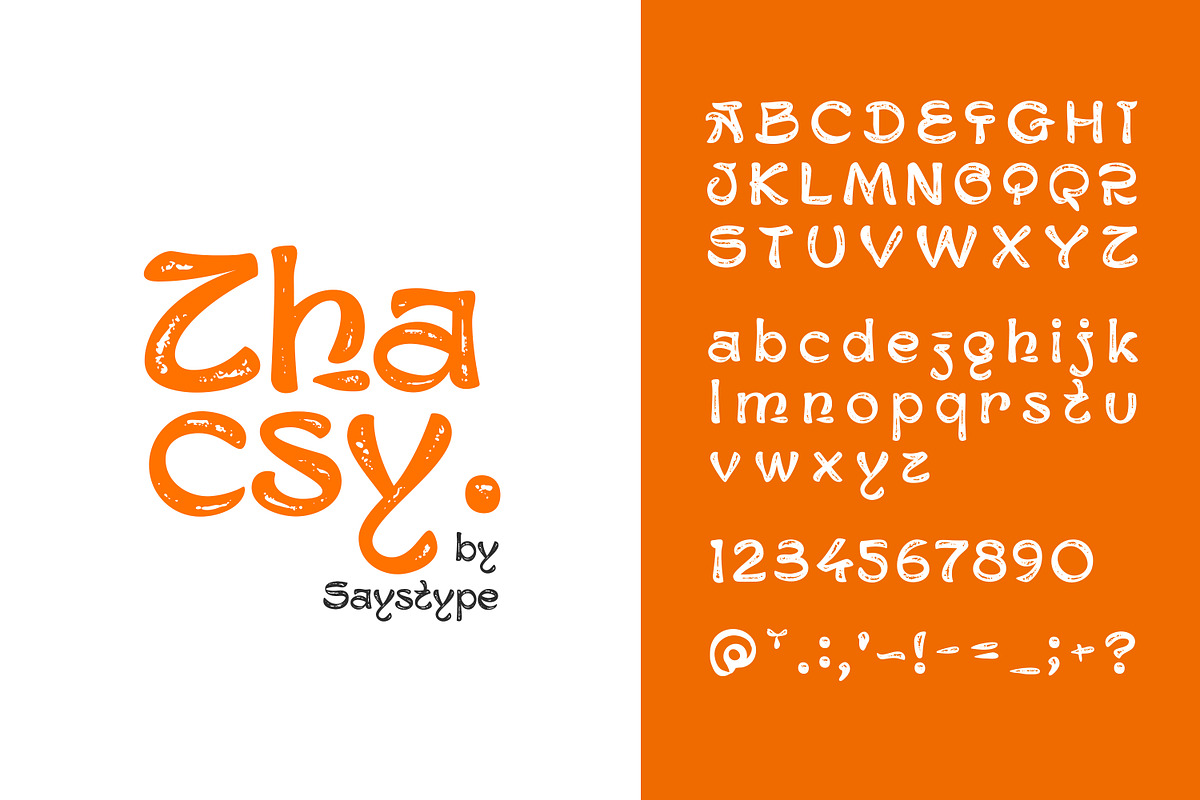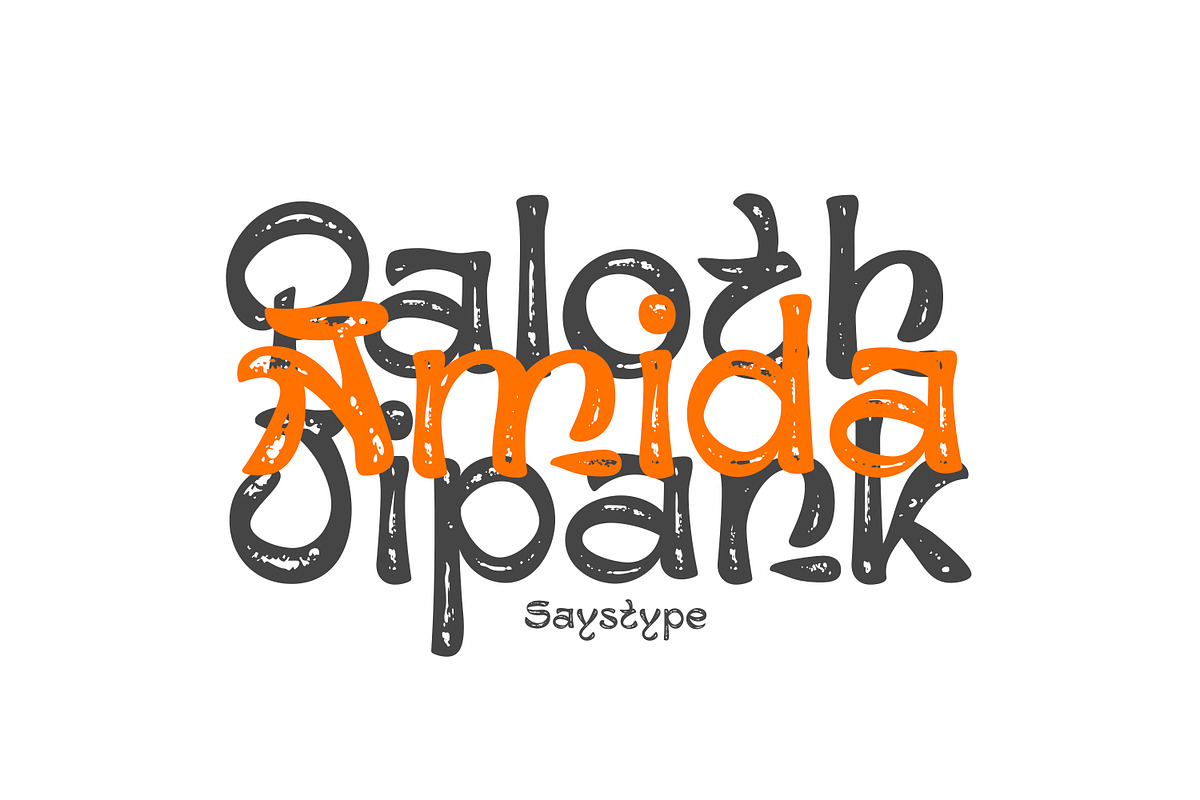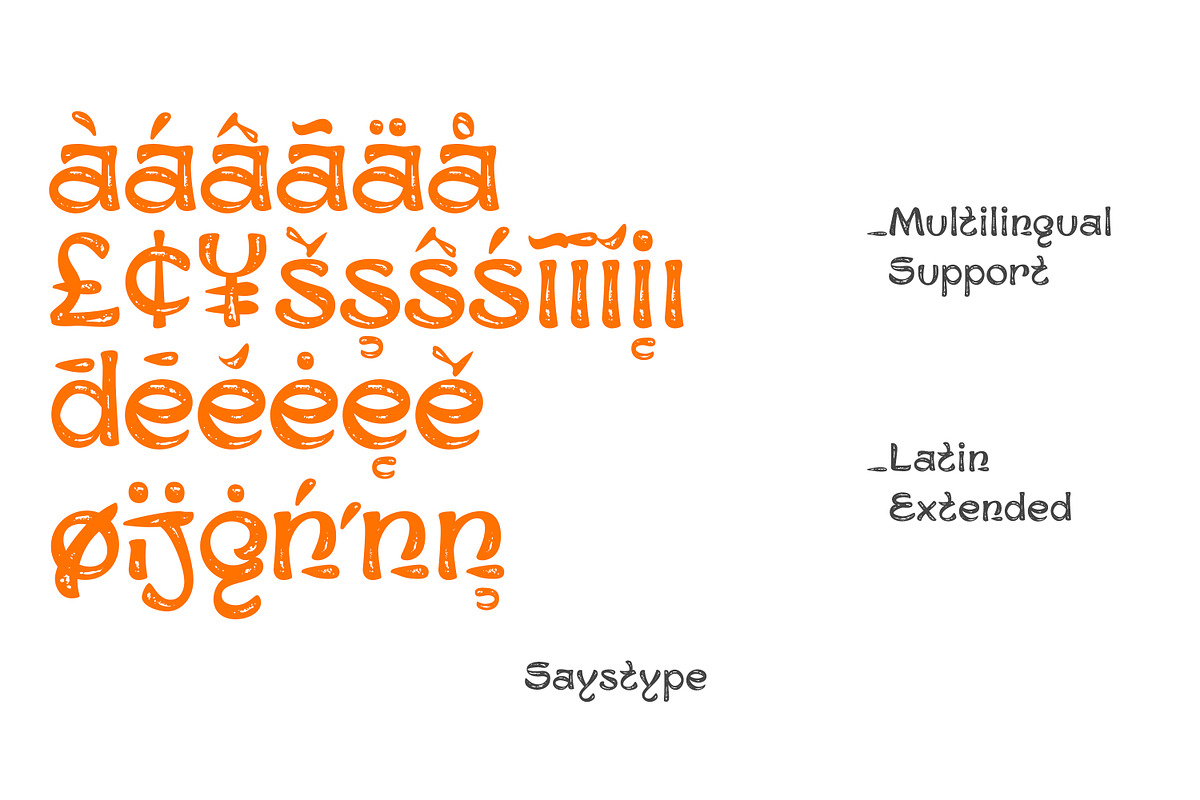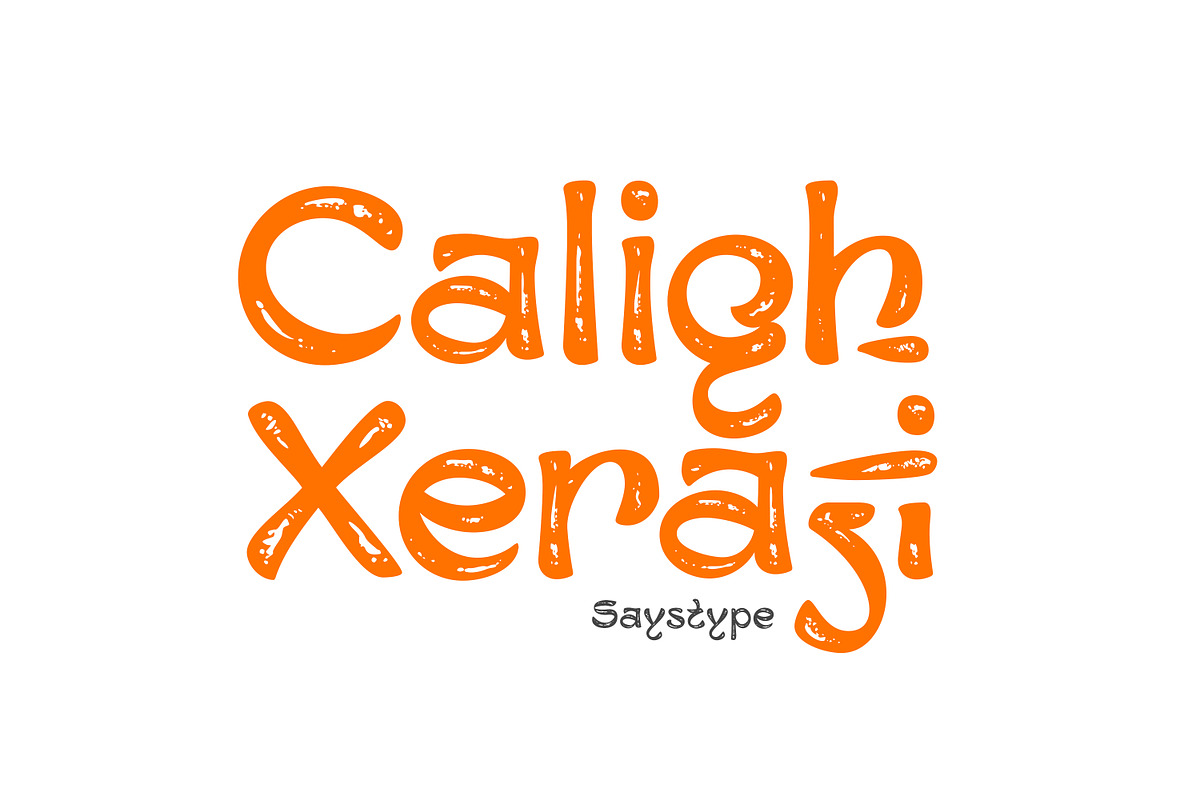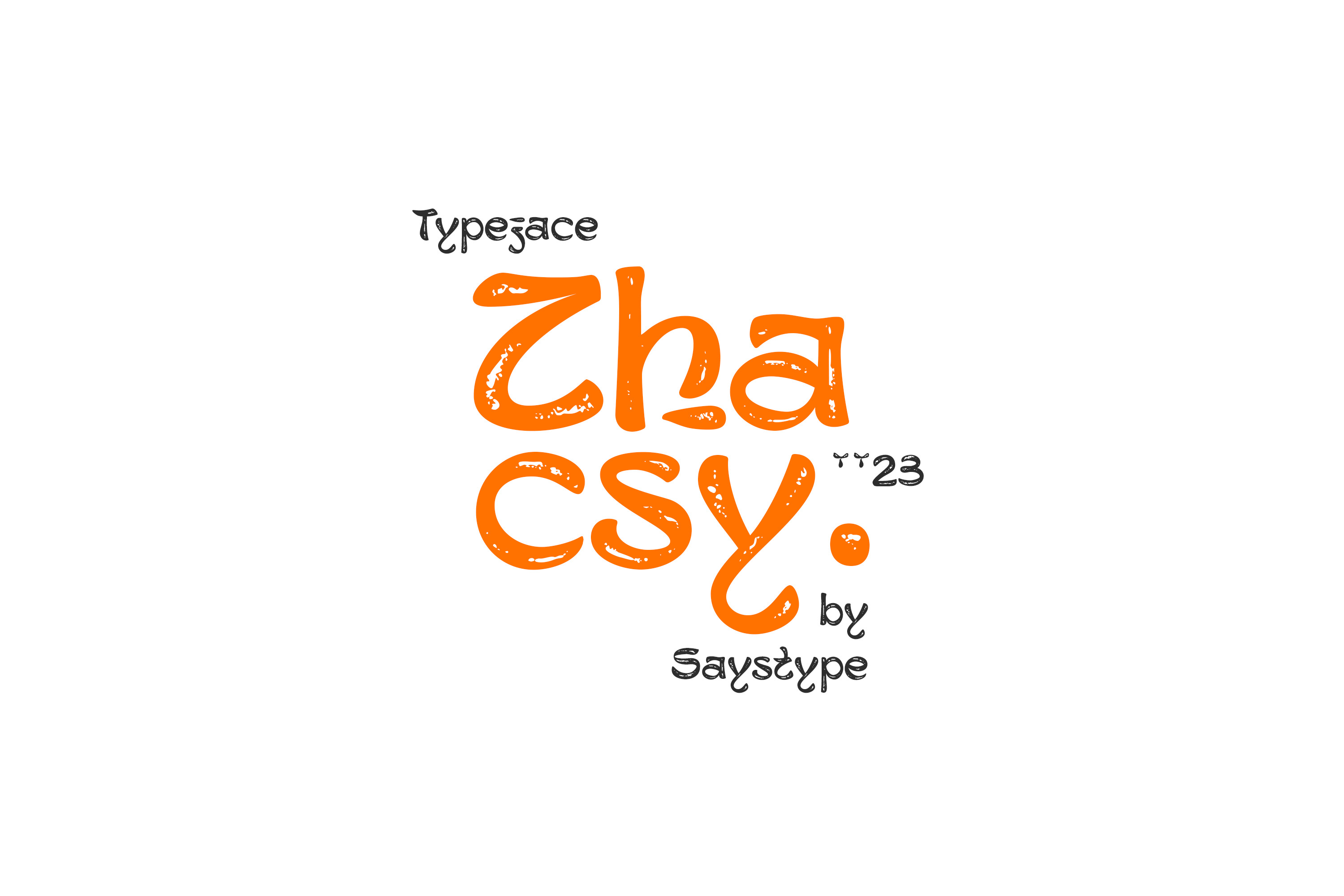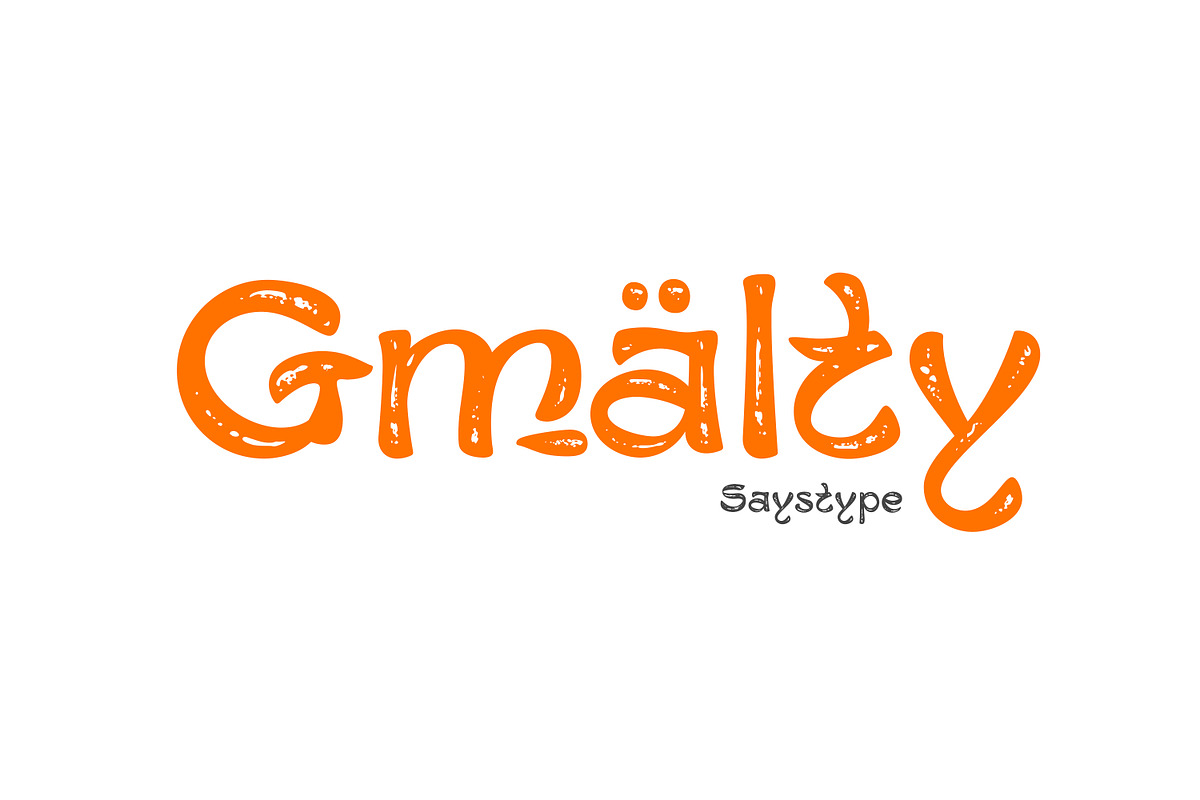
Zhacsy Font
ZHACSY FONT FAMILY by Saystype
Introducing our new graphic stuff "Zhacsy" sans brush and decorative font with Grunge style, Stylish and Ellegant style pair with other font. Suitable for any kind of project such as Main Display, Cover, logos, Branding, App, Letterhead Etc. Easy to use.
Zhacsy Font Features:
- Latin Unicode Range
- Latin Extended Support Range